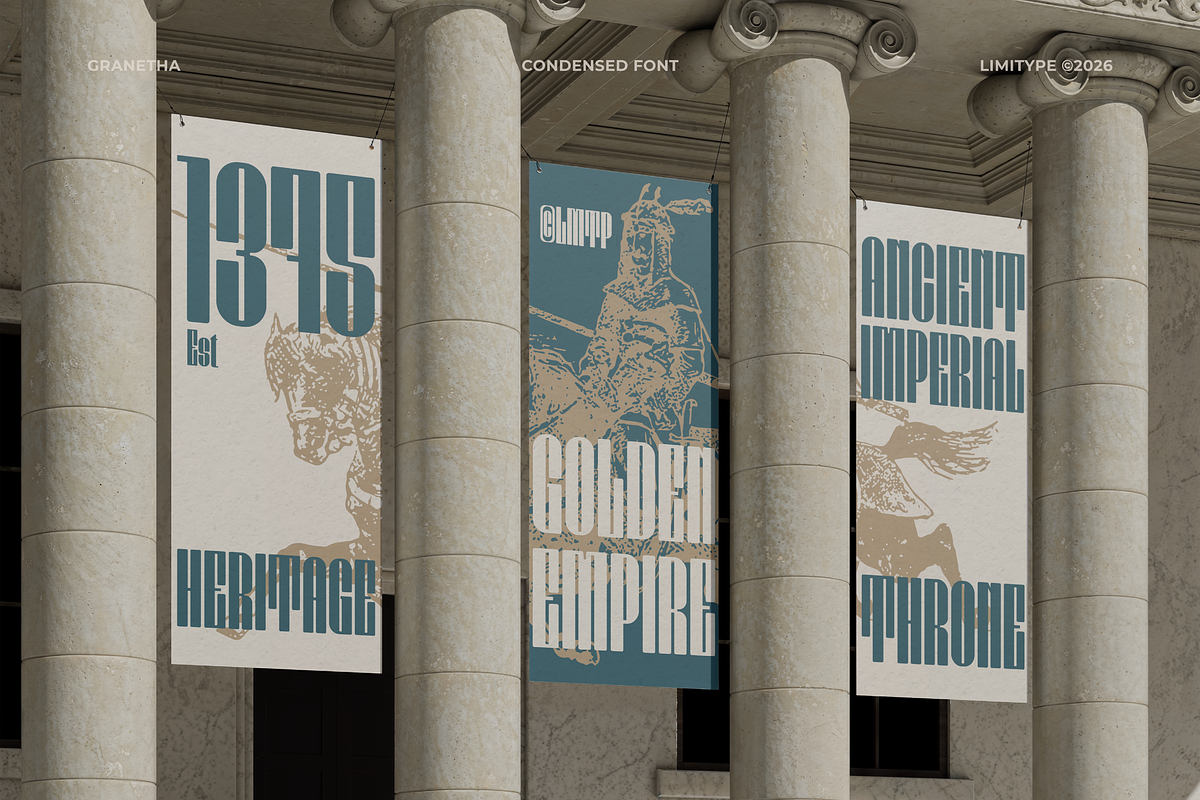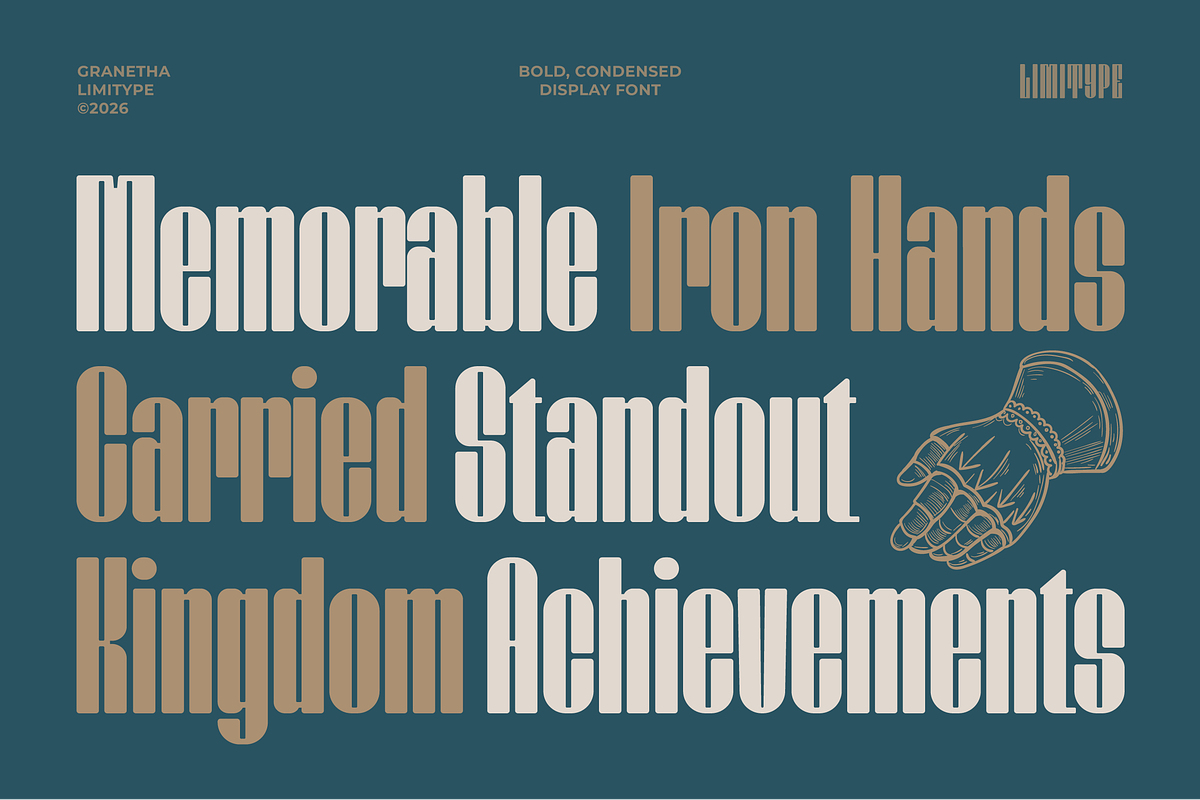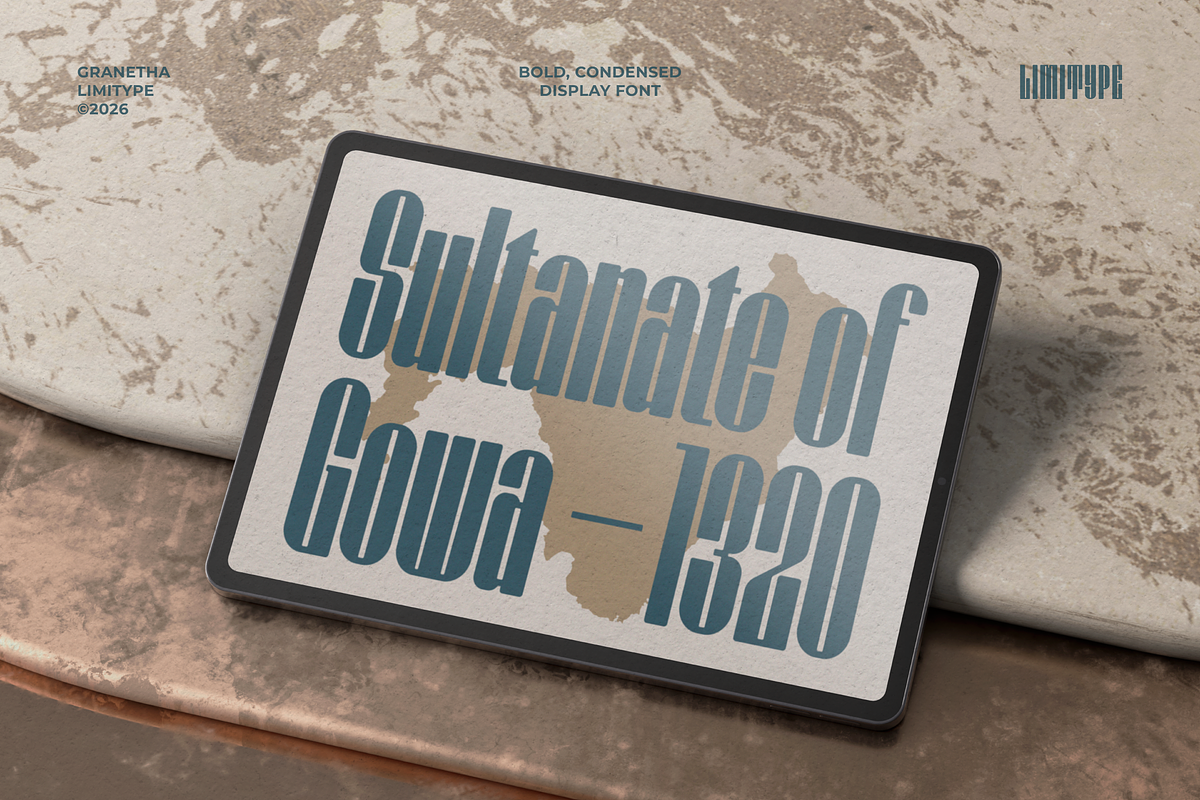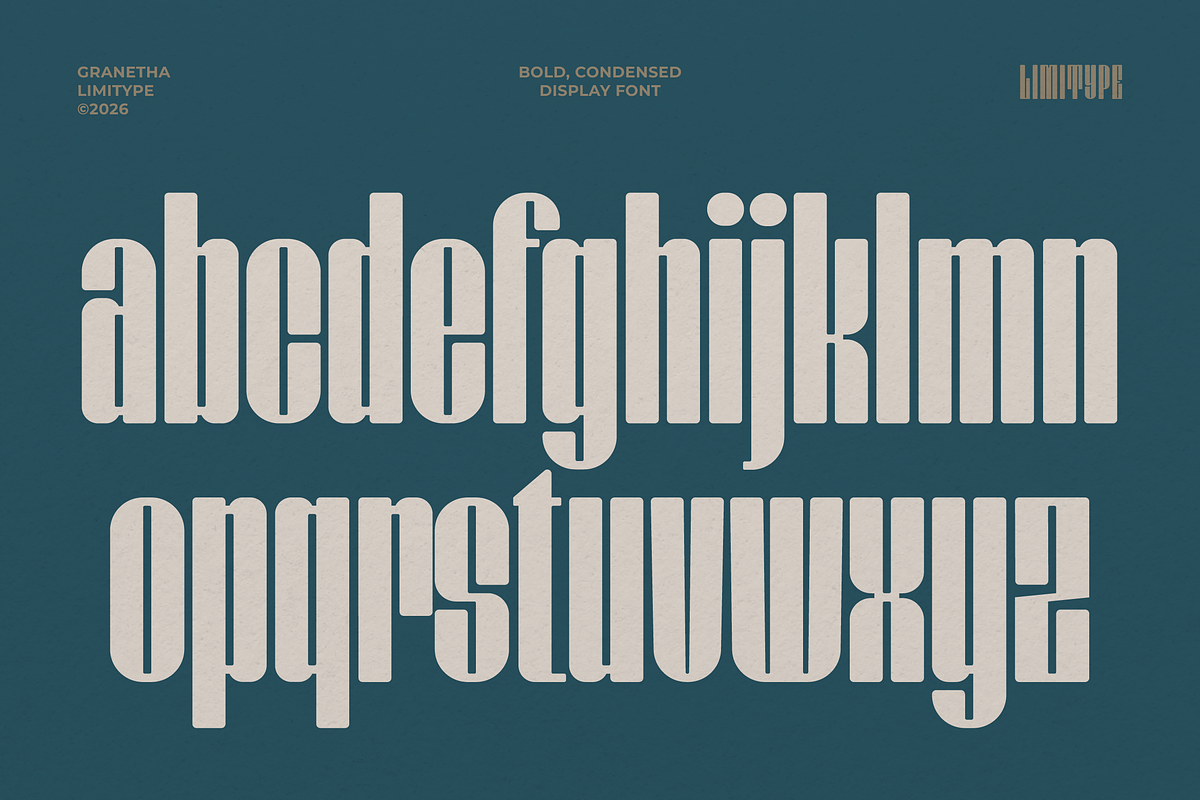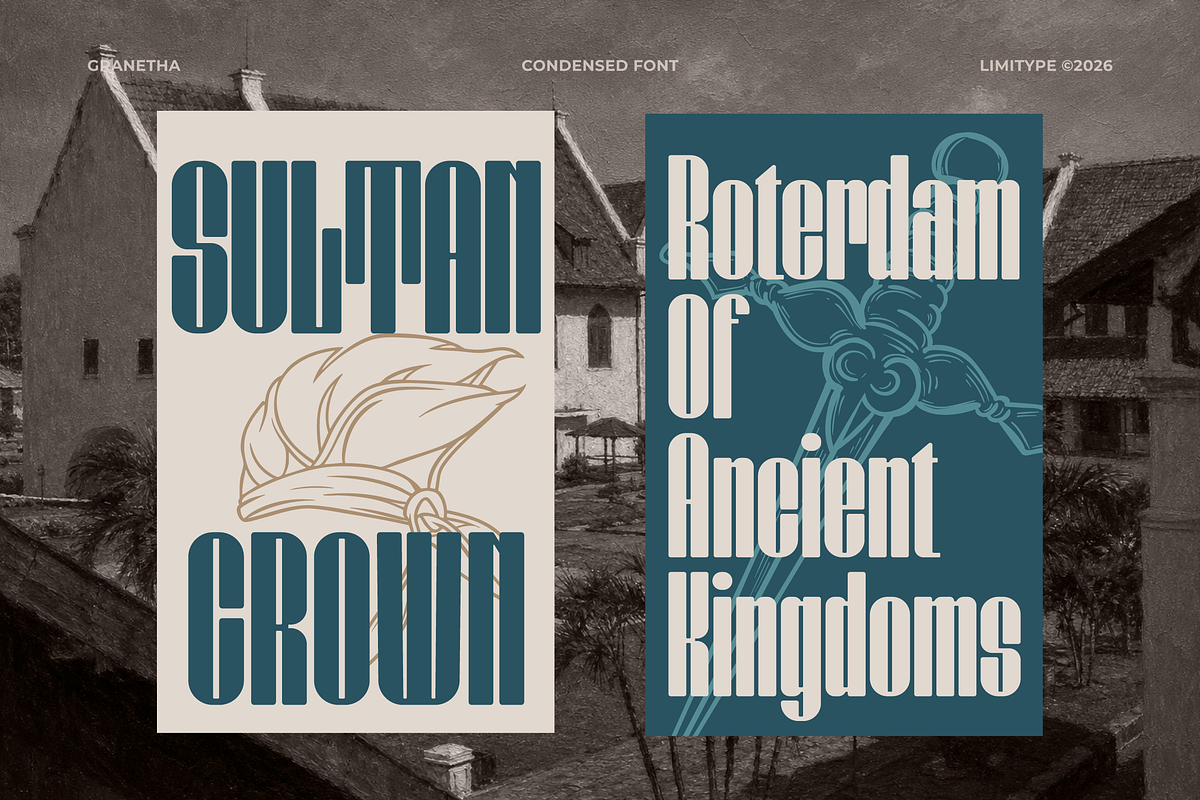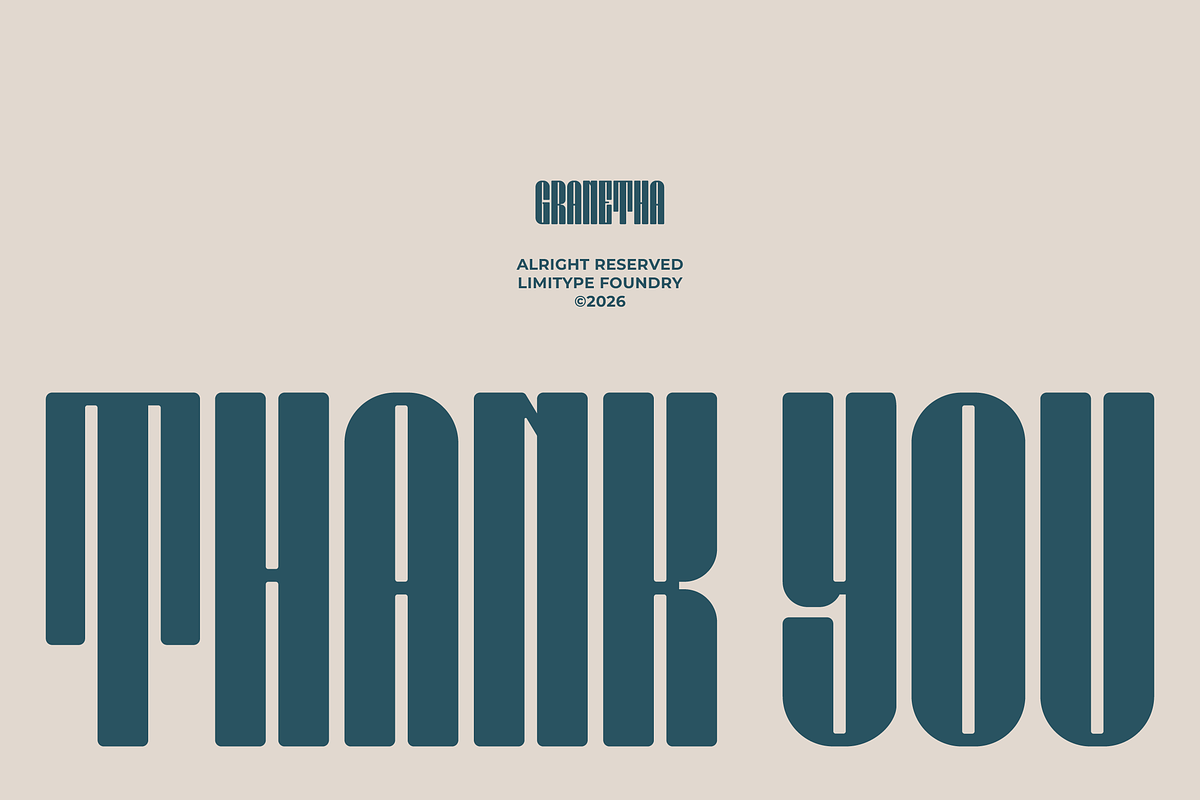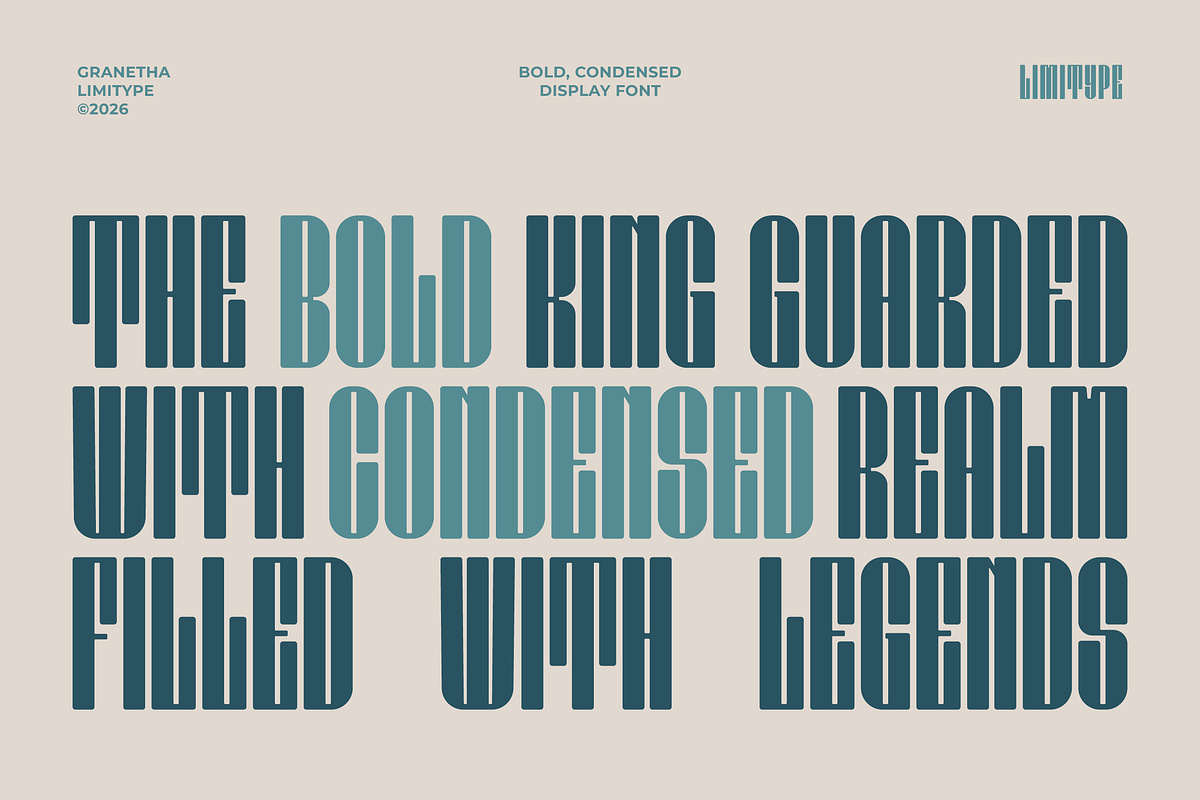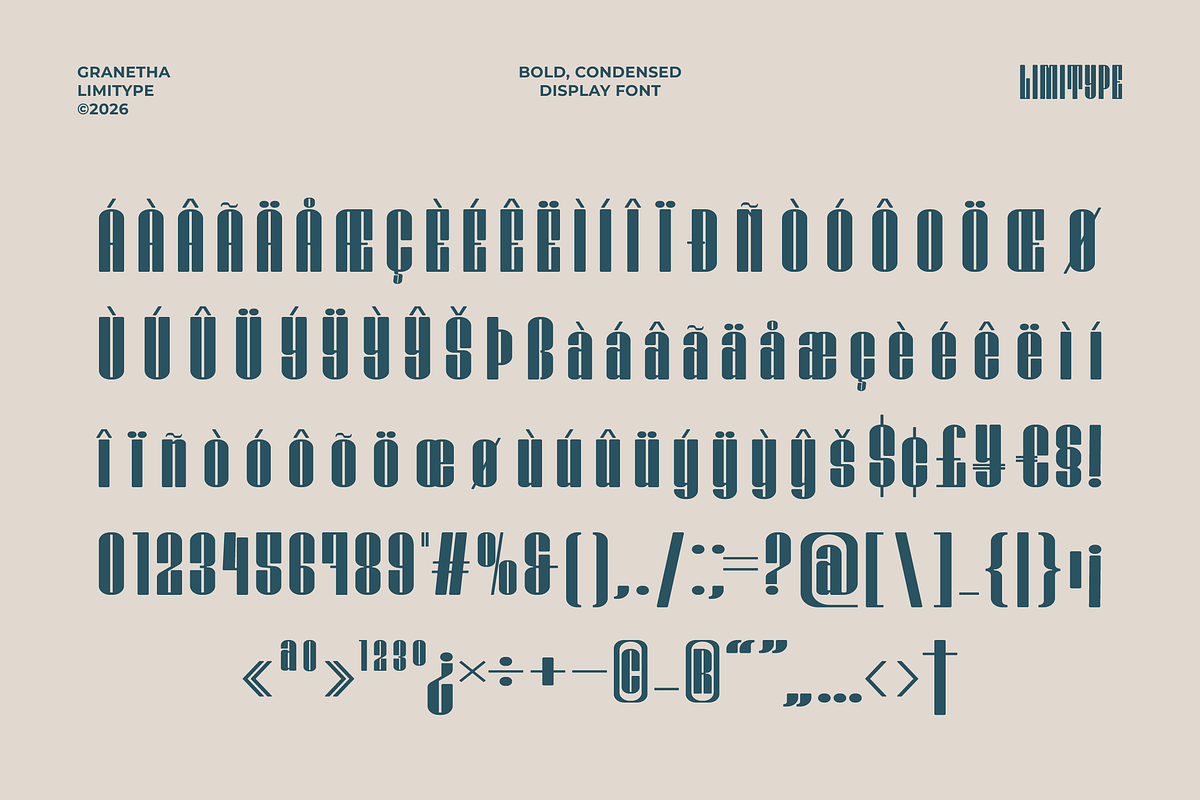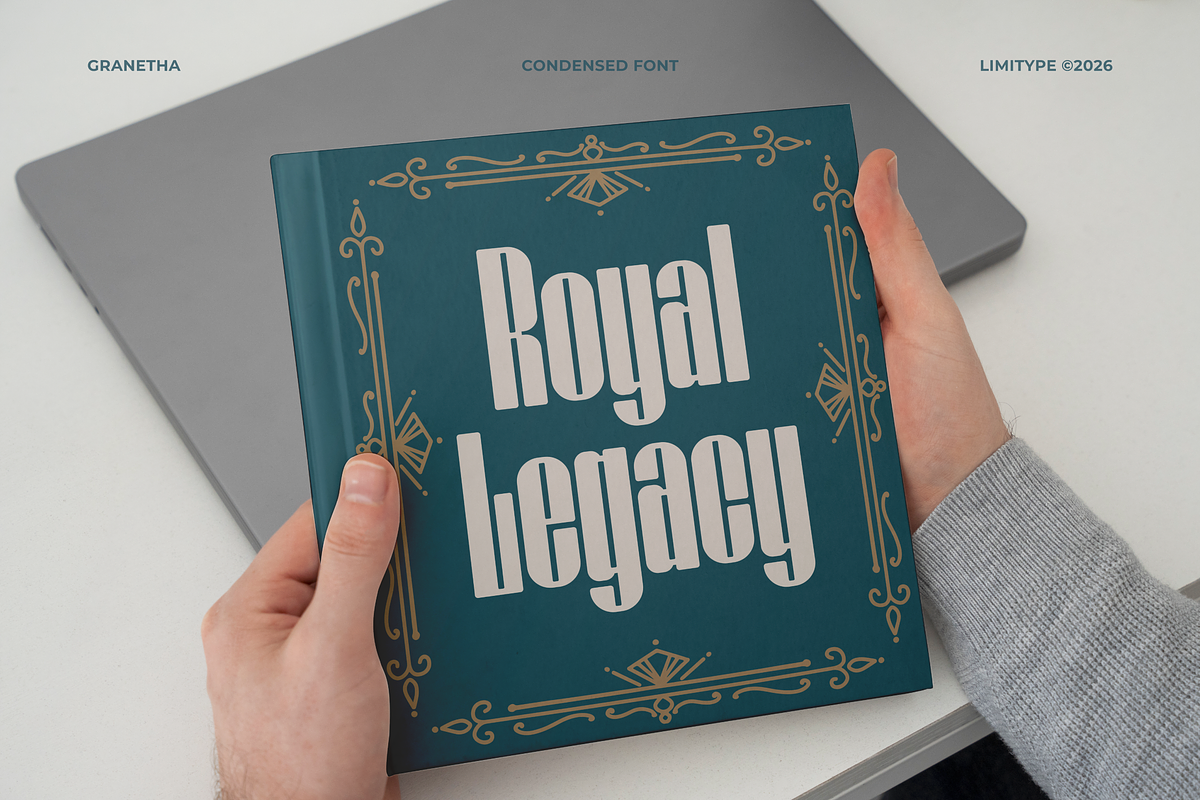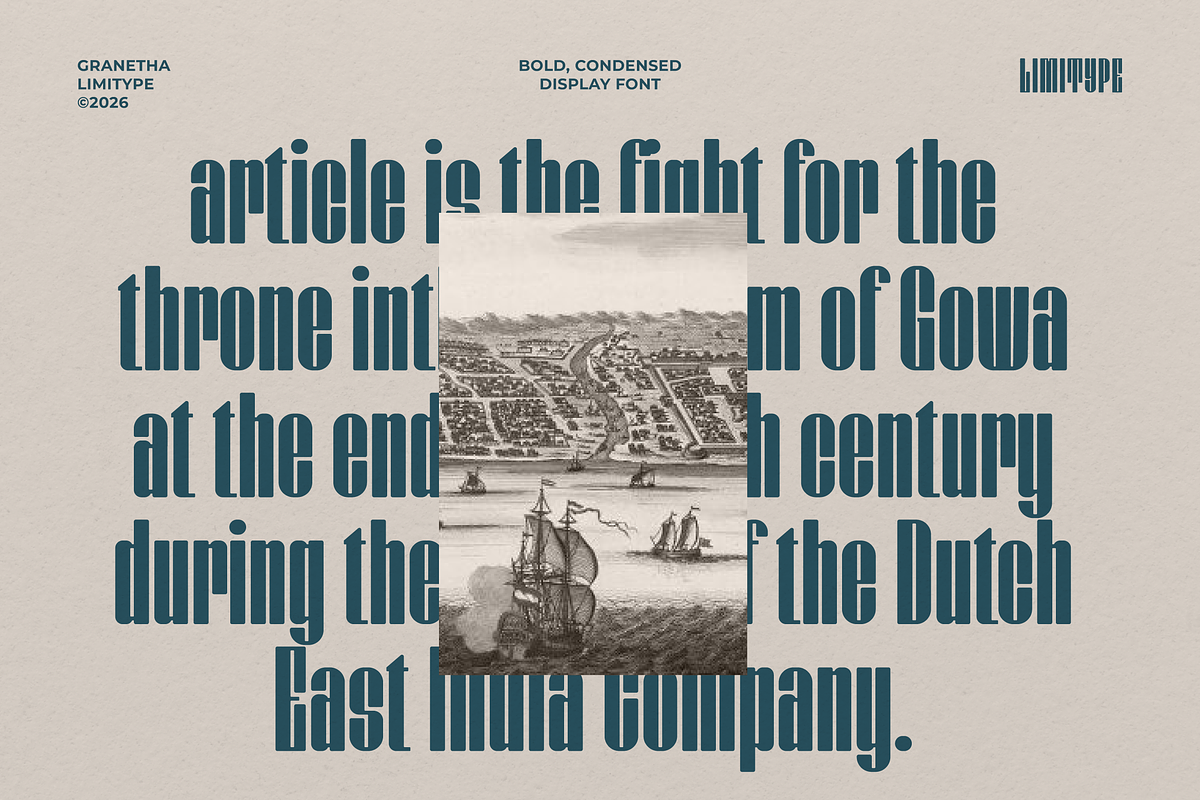
Granetha - Bold Condensed Font
Granetha is a bold condensed display font that combines strength, elegance, and a memorable character. Featuring tall, assertive letterforms and distinctive vertical stencil inspired cuts, Granetha creates a royal, monumental, and confident impression. Designed to capture attention instantly, this font is ideal for branding, posters, headlines, logotypes, packaging, editorial layouts, and a wide range of creative projects that demand a bold and distinctive visual presence.